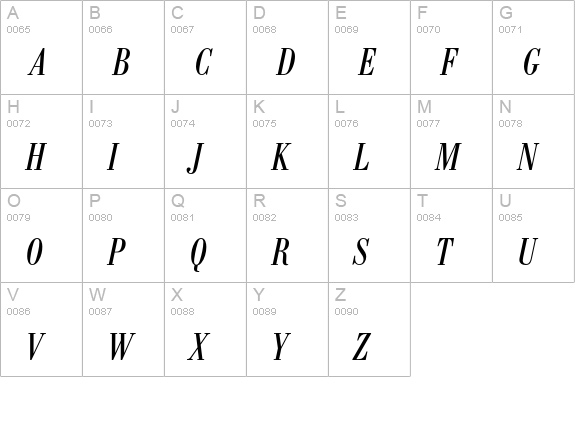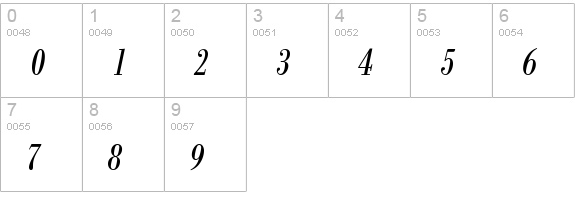
BodoniEF-RegularCondIta is a stunning font that exudes elegance and sophistication. With its slender lines and graceful curves, this font is perfect for adding a touch of refinement to any design project. The condensed style of BodoniEF-RegularCondIta gives it a modern and sleek look, making it ideal for use in various creative applications. What makes BodoniEF-RegularCondIta even more appealing is that it is available for free download at FontsMarket.com. This means that you can easily access this exquisite font without any cost, making it a valuable addition to your font collection. Whether you are working on a branding project, editorial design, or any other creative endeavor, BodoniEF-RegularCondIta is sure to elevate your work with its timeless beauty. Download this font today and experience the sophistication and versatility of BodoniEF-RegularCondIta for yourself.